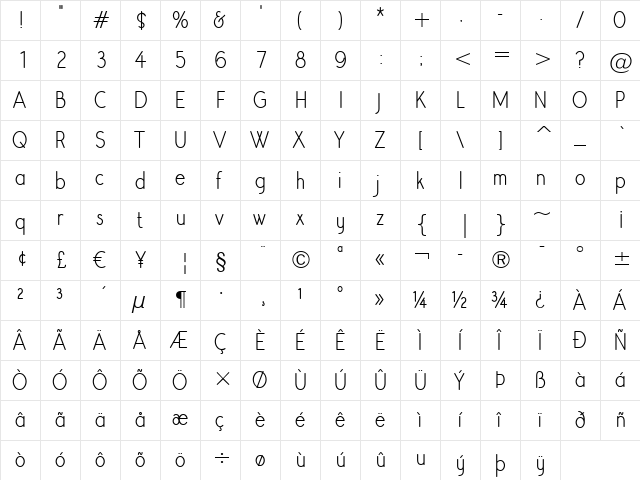
Register Sans BTN Cn Regular
Design Context for Register Sans BTN Cn Typeface
Register Sans BTN Cn is a composed and adaptable typeface that performs quietly and consistently across a wide range of design contexts.